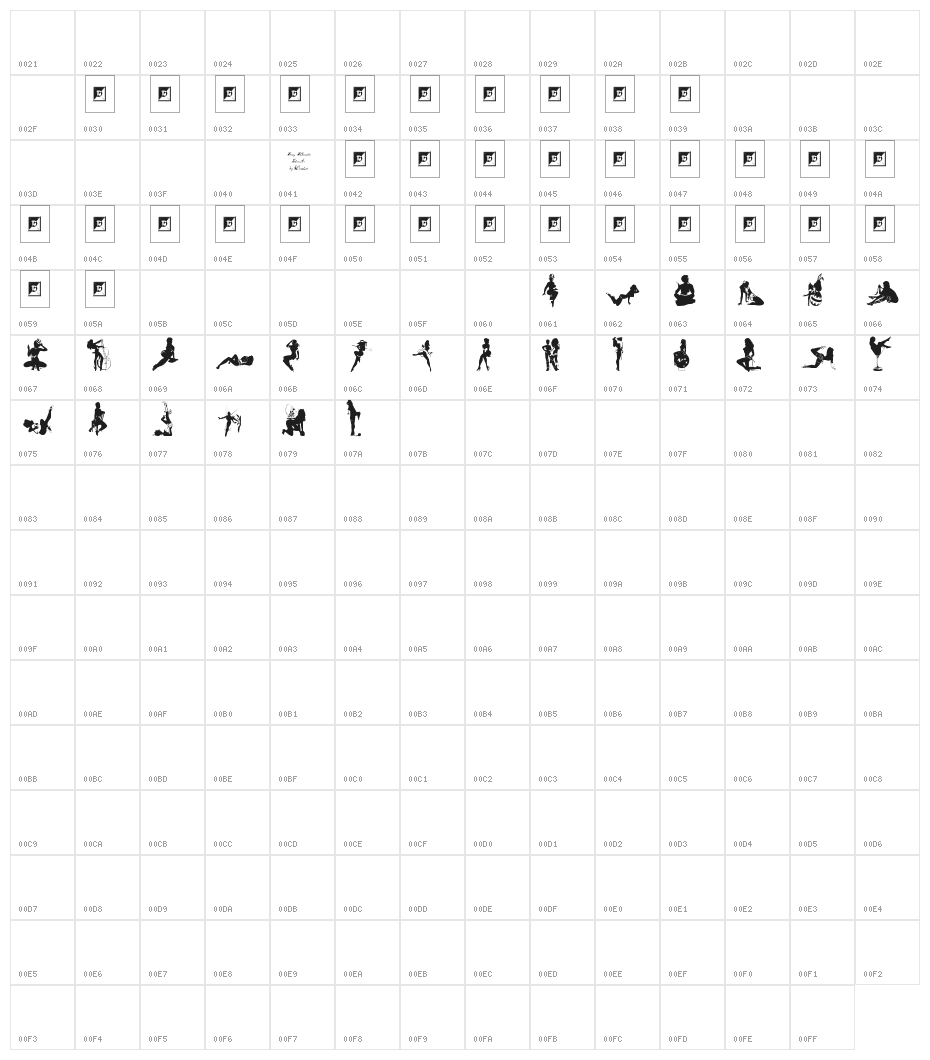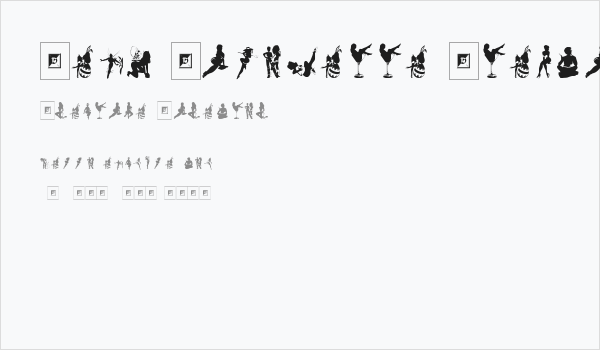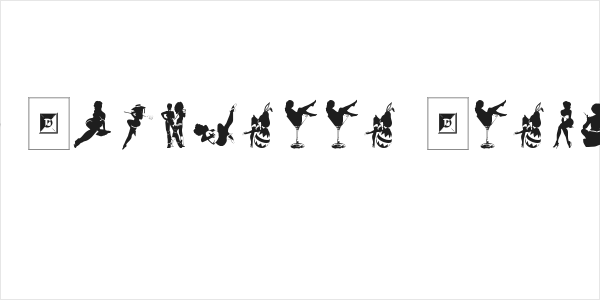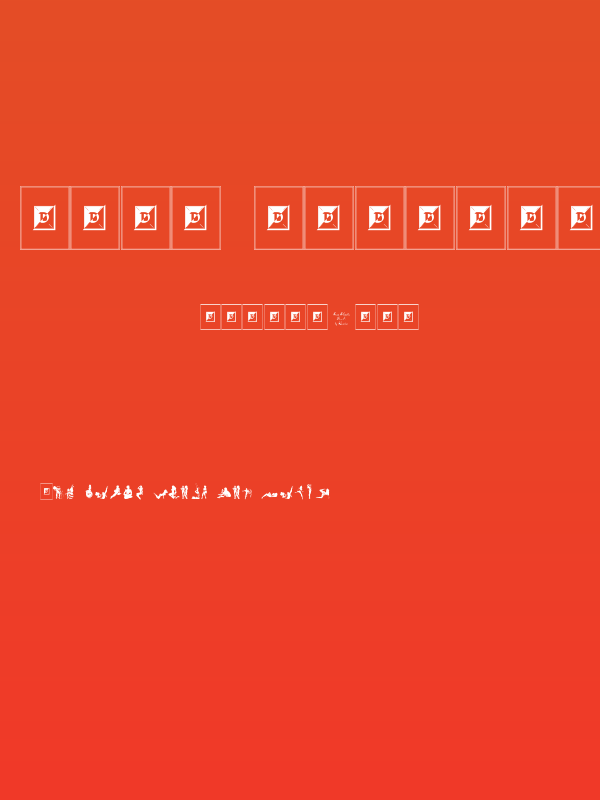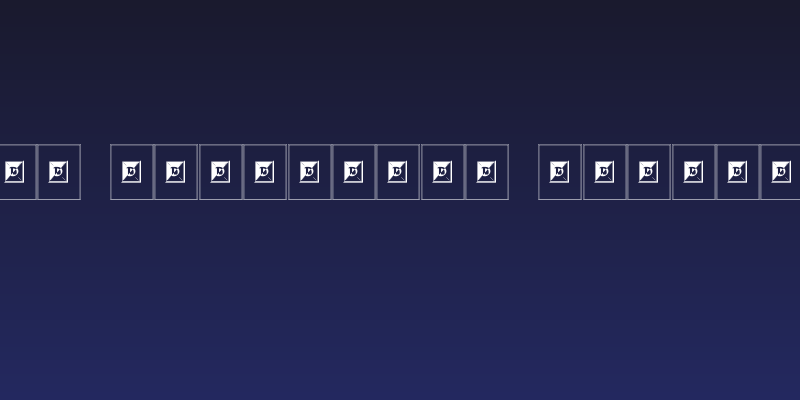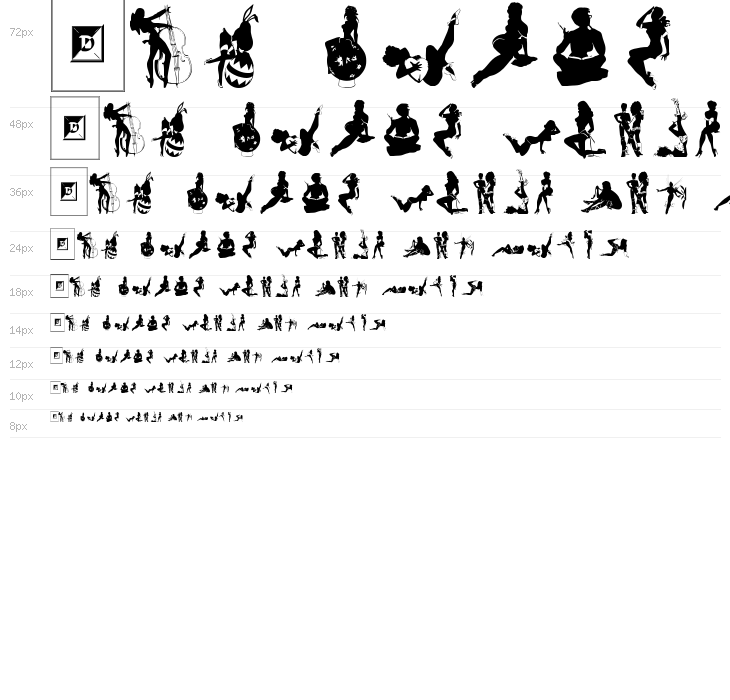
Sexy Silouette Stencils Font
Sexy Silouette Stencils Description
A decorative display set featuring black silhouette stencils of women in various poses, rendered in a bold, high-contrast style with no traditional letterforms present.
| Overall Style | Decorative, playful, modern |
| Use Case | Display graphics, stencils, themed artwork |
| Proposed Projects | Posters, party invitations, themed event decor, novelty merchandise, graphic design accents. |